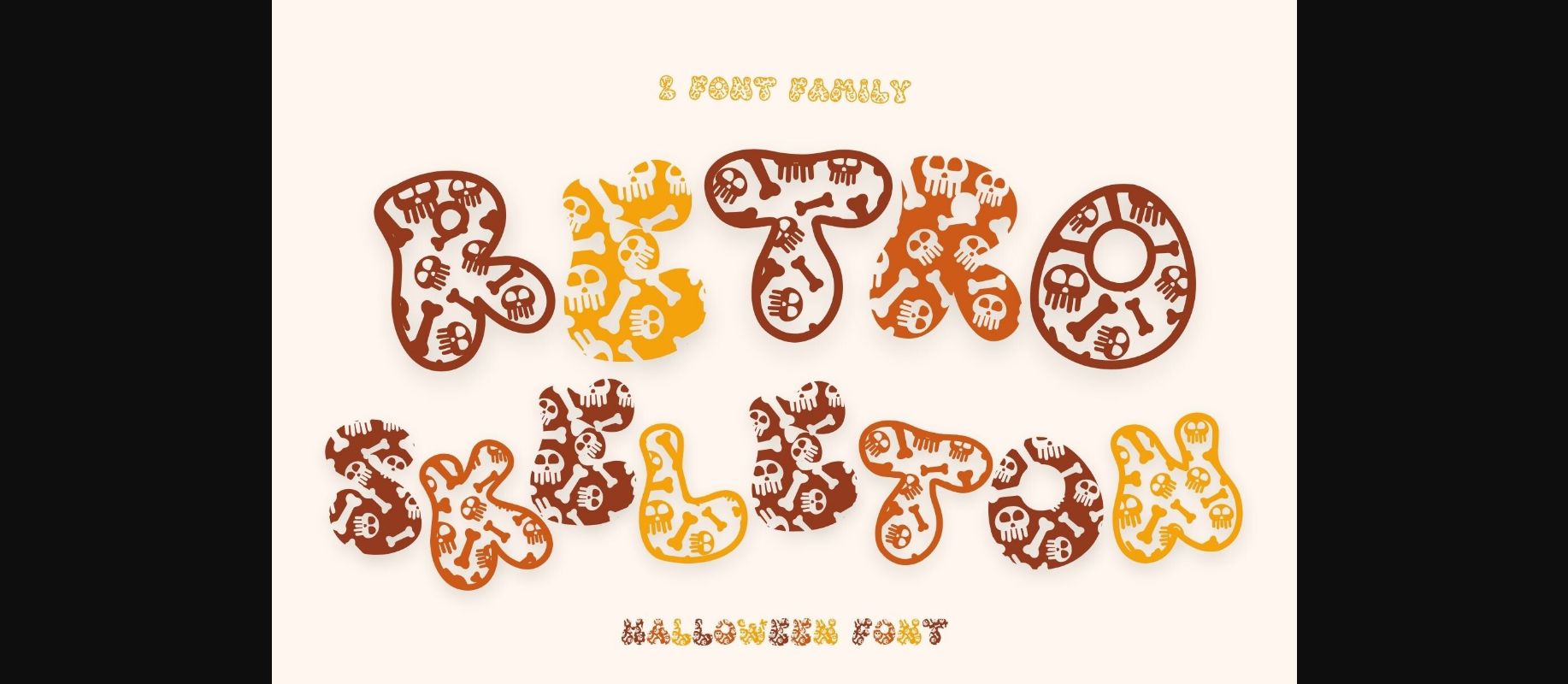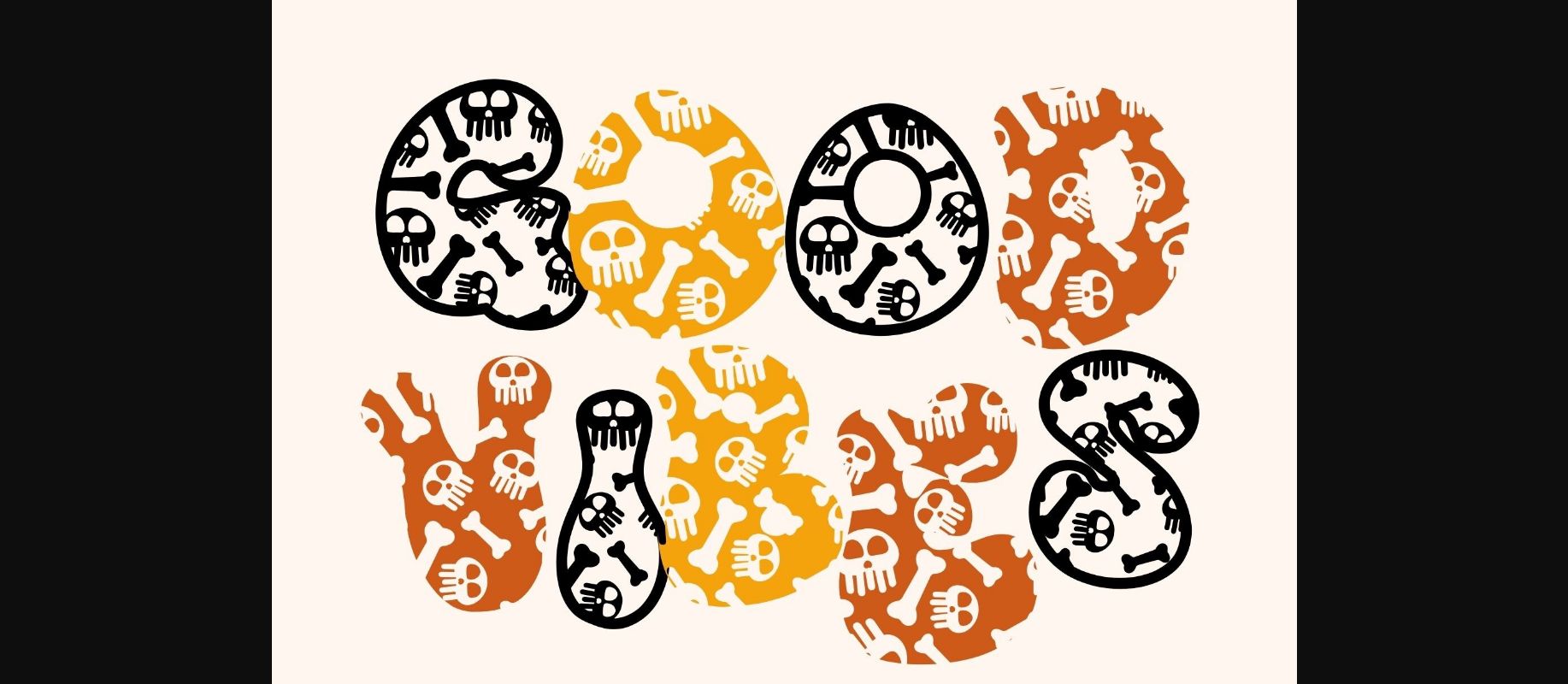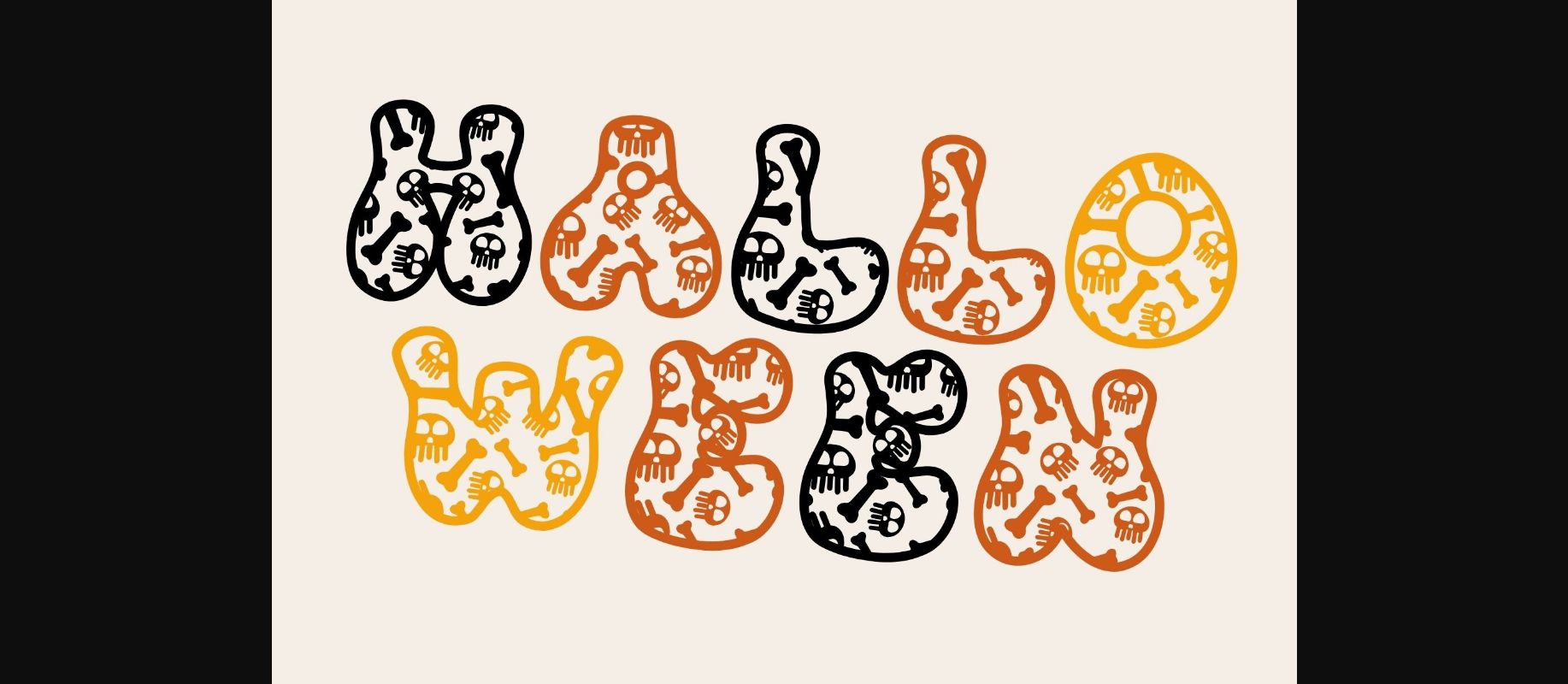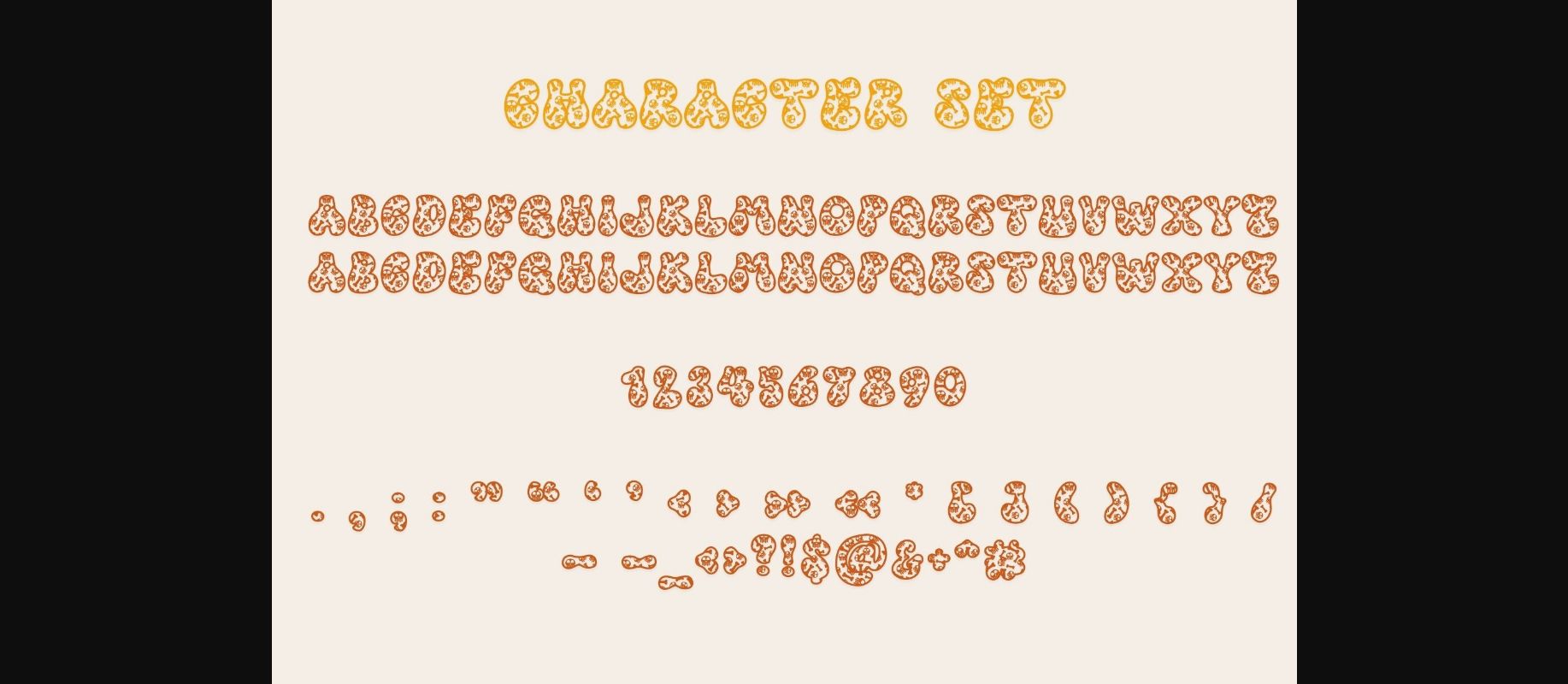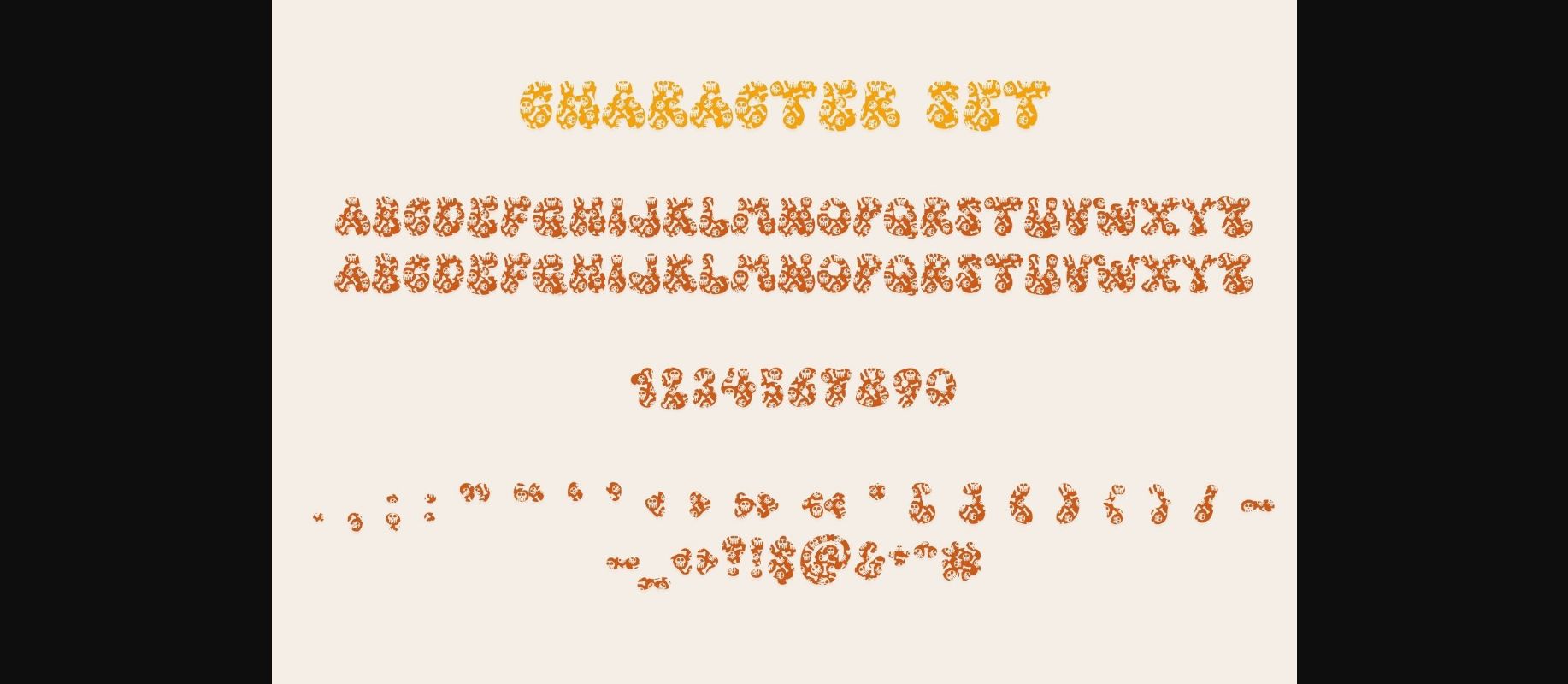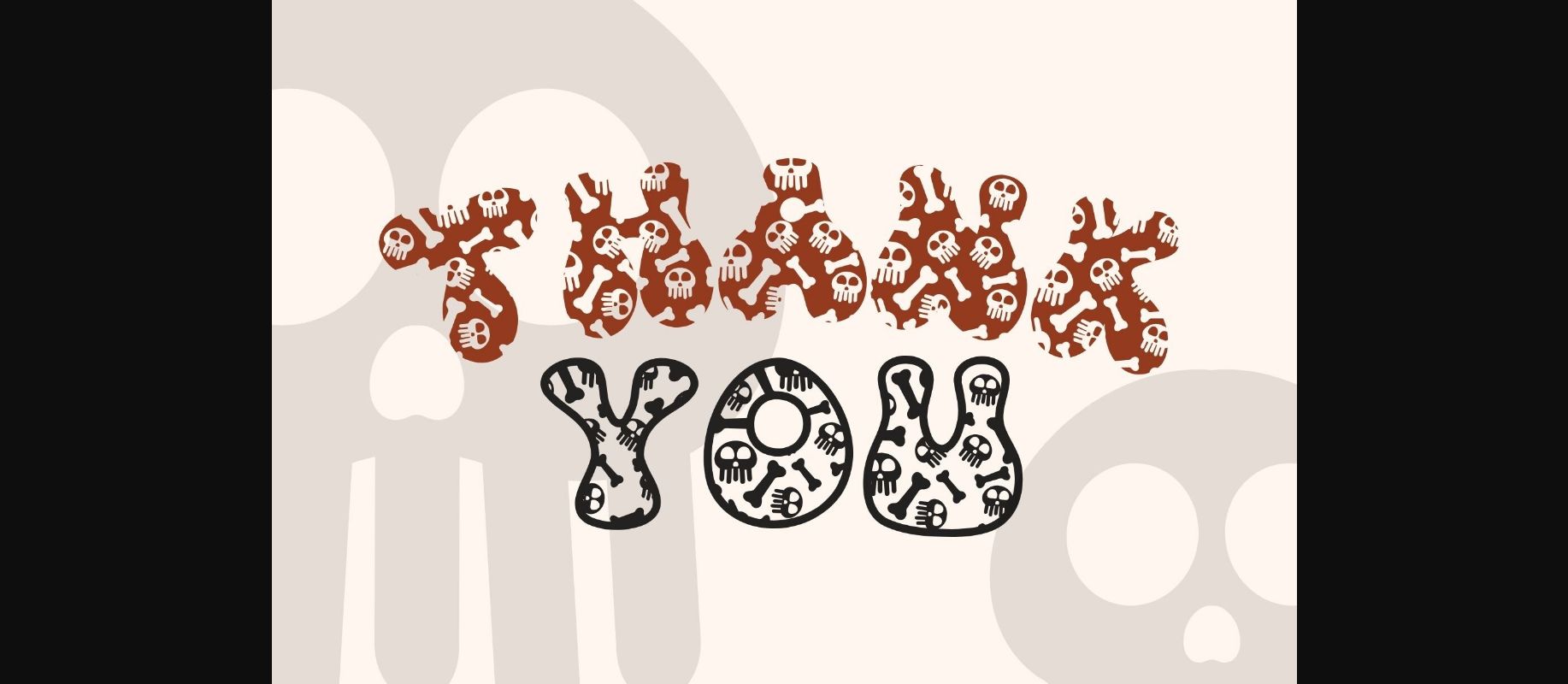
Retro Skeleton Font
About Retro Skeleton Font
Retro Skeleton is a fun and unique decorative font. This quirky Halloween font makes it the perfect choice for various projects, such as blog posts, logos, branding, ads, invitations, greeting cards, planners, photo albums, decorations, and much more. Add it to any of your designs, and enjoy the results!